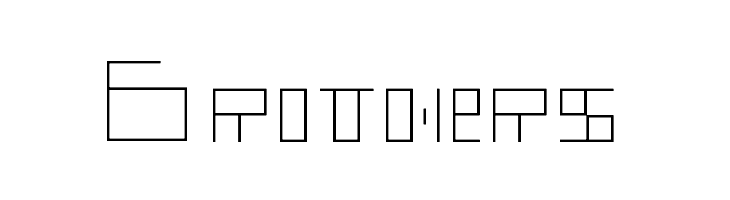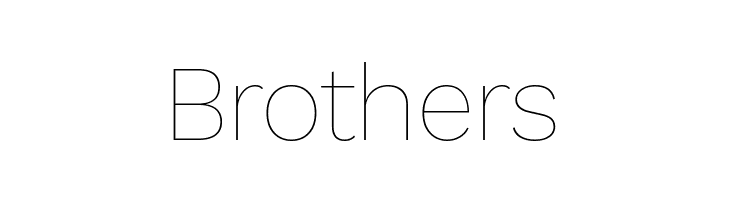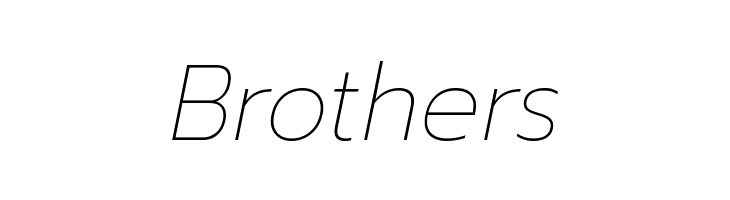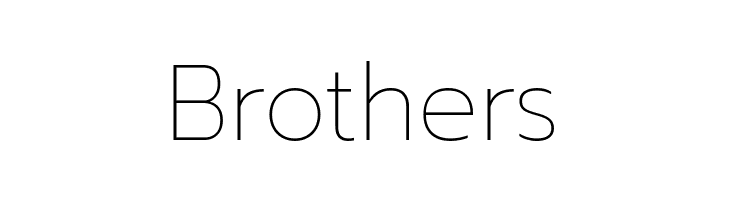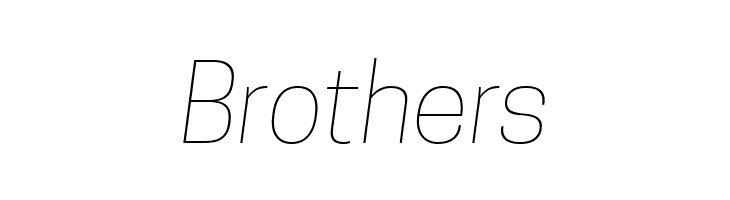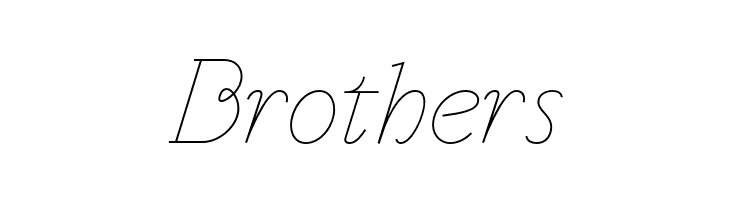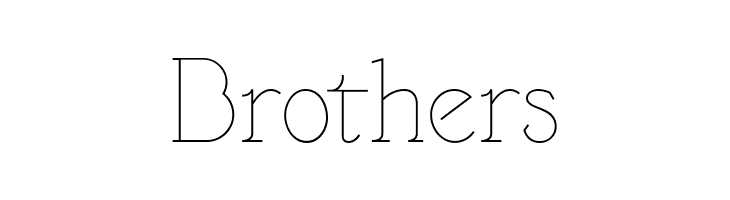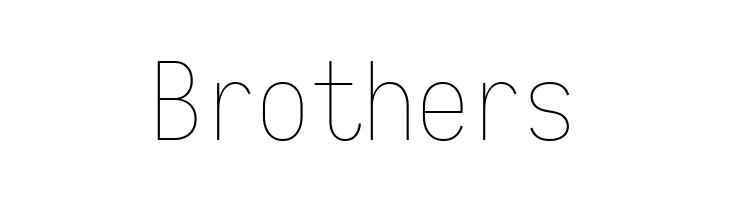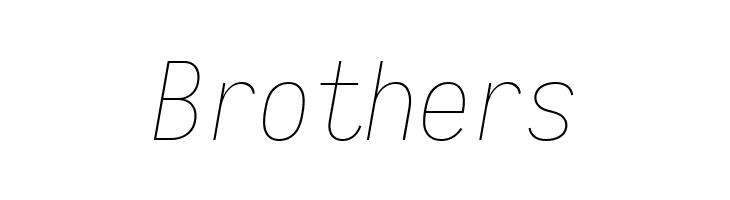
• polyont thin
A geometric, minimalist font with thin, linear strokes and a futuristic look.
• Franko Thin Italic
A sleek, modern, and thin italic font with a minimalist design.
• Elaine Sans Thin
A thin, modern sans-serif font with clean lines and balanced spacing.
• Elaine Sans Thin Italic
A thin, elegant italic font with modern, elongated letterforms.
• Readiness Thin Italic
A sleek, thin italic font with modern elegance and high legibility.
• Readiness Thin
A thin, modern font with clean lines and balanced spacing.
• Tanohe Sans Thin
A sleek, modern sans-serif font with thin, uniform strokes.
• Tanohe Sans Thin Italic
A thin, italicized sans-serif font with a modern and elegant style.
• VTF_VictoriannaThin_italic
A thin, elegant, and italicized font with a refined and sophisticated style.
• VTF Victorianna Thin
A thin, elegant font with high contrast and refined strokes.
• Isabella Sans Thin Italic
A sleek, thin, and italicized font with a modern and elegant design.
• Isabella Sans Thin
A sleek, minimalist font with thin strokes and a modern geometric style.
• Morrison Thin
A modern, thin sans-serif font with clean lines and a minimalist aesthetic.
• Morrison Thin Italic
A sleek, thin, and italic font with a modern and elegant design.
• Plata Sans Thin Italic
A sleek, modern, and thin italic font with a minimalist aesthetic.
• Plata Sans Thin
A thin, modern sans-serif font with a sleek and minimalist style.
• Vazir Thin WOL
A modern, thin, monospaced font with a minimalist design.
• Vazir Thin FD
A thin, modern sans-serif font with a clean and minimalist design.
• Vazir Thin
A modern, thin sans-serif font with clean lines and balanced spacing.
• Vazir Thin FD-WOL
A modern, minimalist font with thin strokes and unique numeral design.
• Roberto Sans Thin Italic